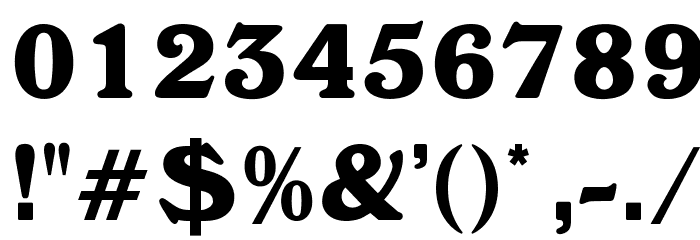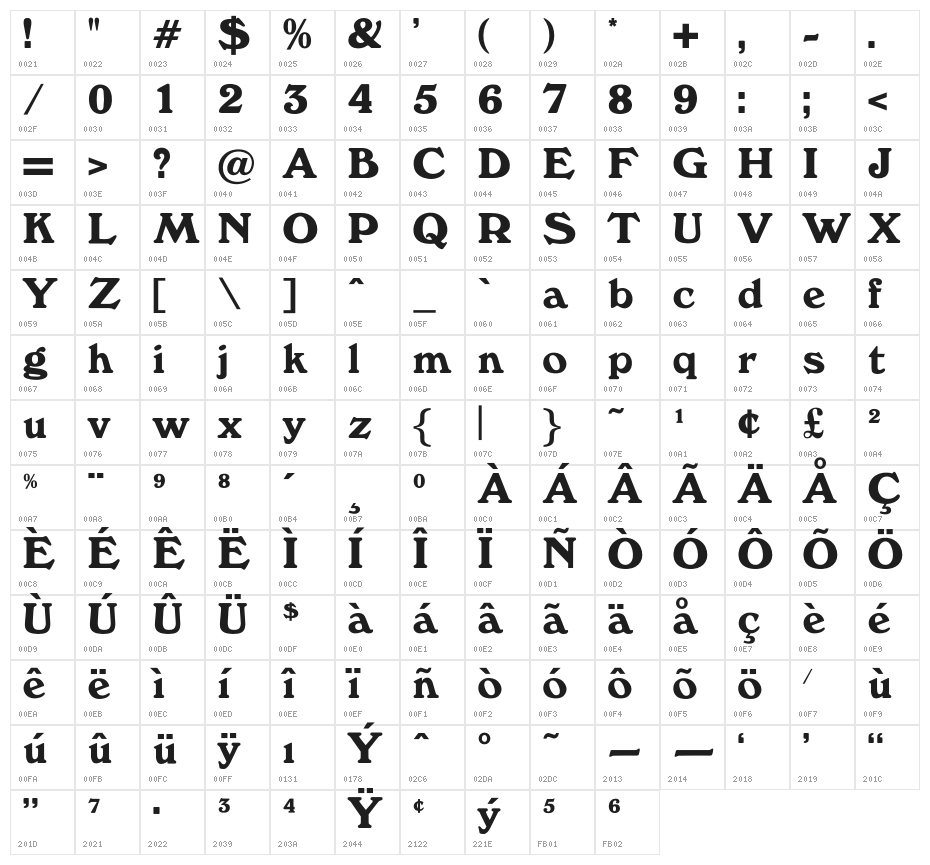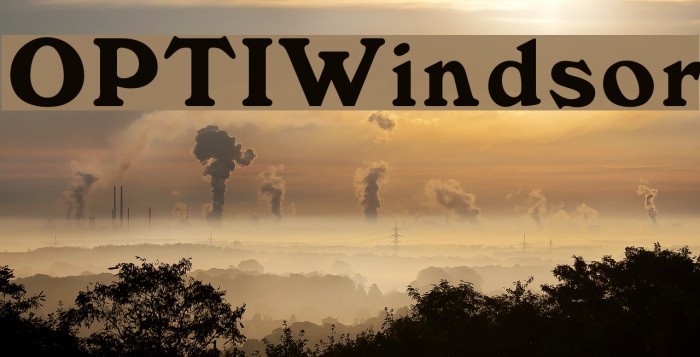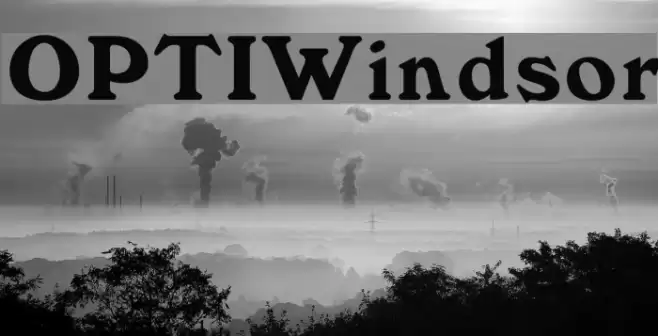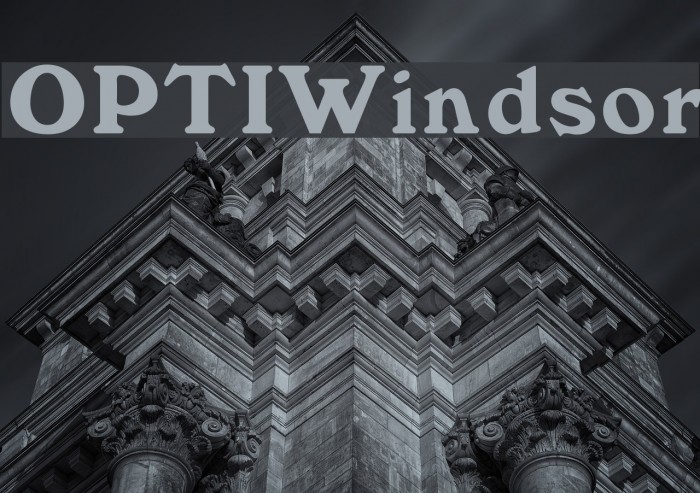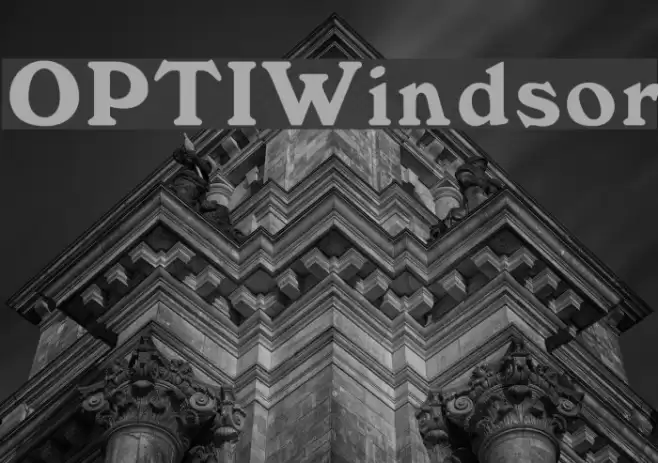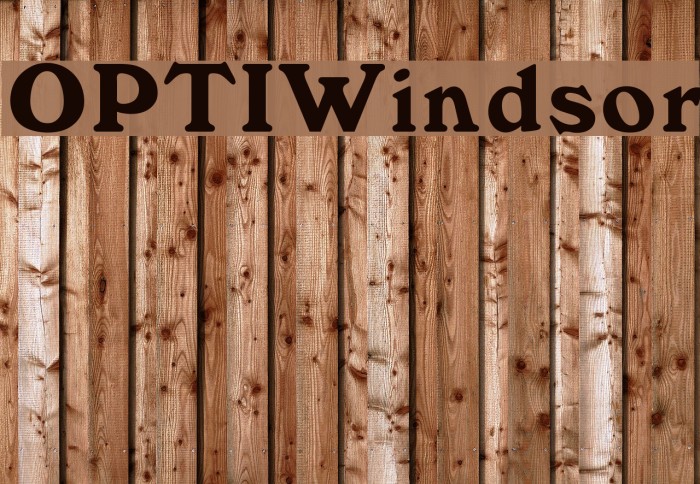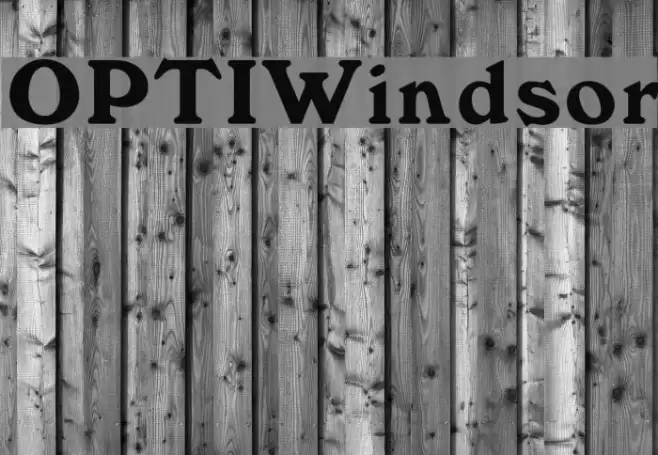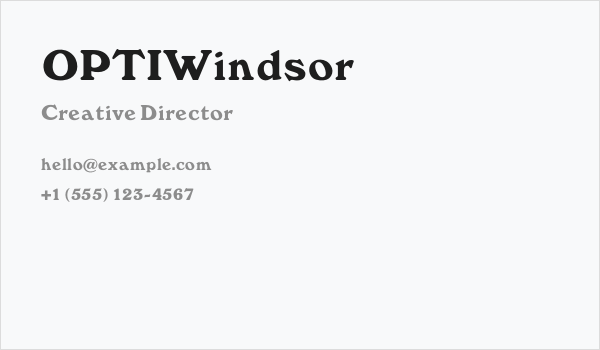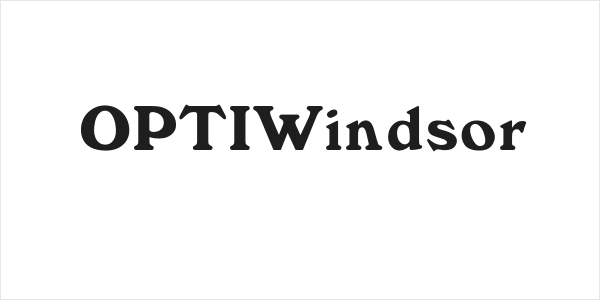
OPTIWindsor Font
OPTIWindsor Description
This font features a classic and elegant serif style with a strong presence. The uppercase letters are bold and commanding, with distinct serifs that add a touch of sophistication. The lowercase letters maintain a consistent style, offering a harmonious blend of curves and angles. Numbers are clear and legible, making them suitable for various applications. Special characters are well-defined, ensuring versatility in design projects. The overall appearance is both traditional and timeless, making it a great choice for projects that require a touch of class and readability.
| Proposed Projects | Ideal for book covers, formal invitations, branding, and editorial design. |